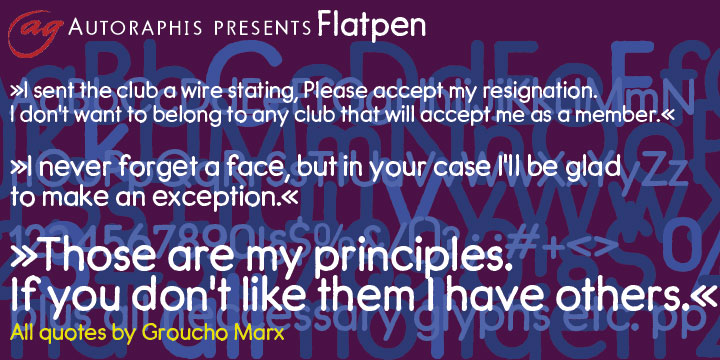
This handwritten typeface is perfect for art supply stores, calligraphy workshops, design studios, handmade craft brands, artisan marketplaces, creative writing courses, illustration portfolios, artist studios, design education, sketchbook publishers, architectural firms, and creative consultation services. The font's authentic design makes it ideal for projects that celebrate artistic expression, creative authenticity, and the personal touch of hand-drawn lettering that brings warmth and human connection to design communication.
Flatpen Font is exciting because it embodies artistic authenticity and creative expression through its marker-inspired letterforms and hand-drawn character structure. The font's flat-tip strokes and natural proportions create an atmosphere of creativity, spontaneity, and artistic freedom, making it perfect for brands that want to convey originality, craftsmanship, and the genuine appeal of handmade design work. Its artistic personality ensures instant creativity while maintaining excellent readability across various design applications.
The Flatpen Font family includes multiple artistic variations: Light Sketch, Regular Draw, Medium Stroke, Bold Marker, and Black Brush weights, each available in standard and textured versions. Special artistic editions feature hand-drawn alternates, sketch ornaments, and creative symbols that enhance the font's handmade appeal, providing designers with comprehensive tools for creating authentic art-focused communications.
Draw inspiration with authentic design using Flatpen Font Free Download – a typeface that represents creative authenticity and artistic expression. Whether you're developing art brand identity, creative portfolio materials, or handmade marketing campaigns, this font delivers the artistic presence and creative authenticity your projects need while ensuring exceptional performance and handcrafted impact across all artistic and creative applications.